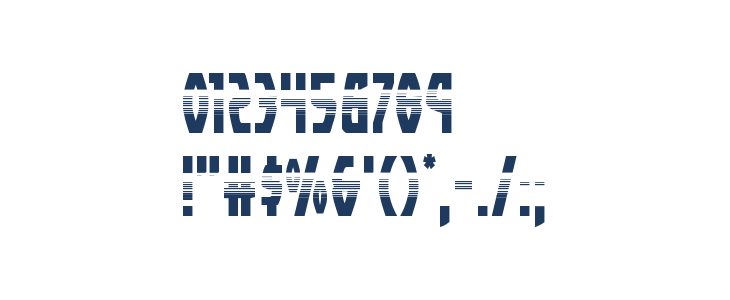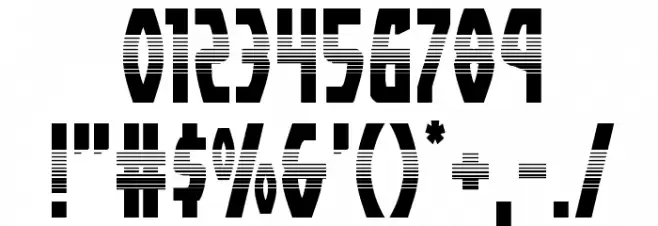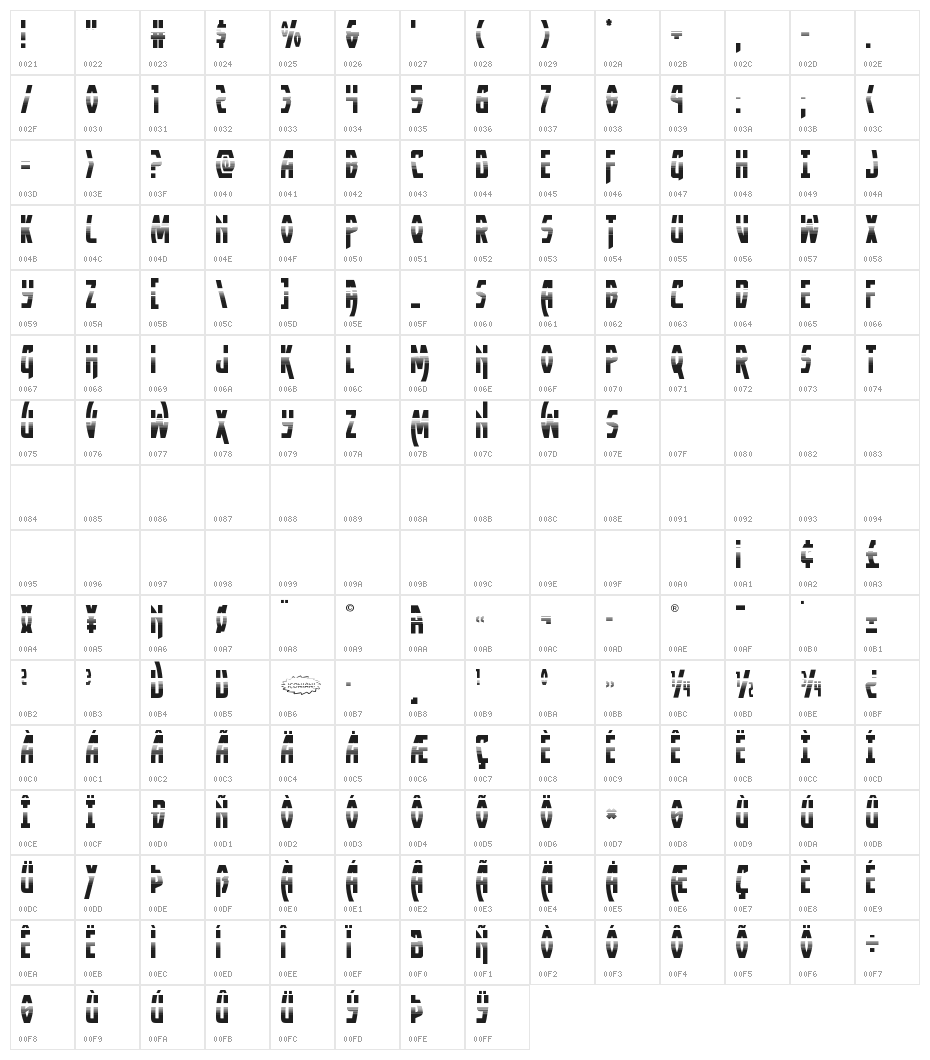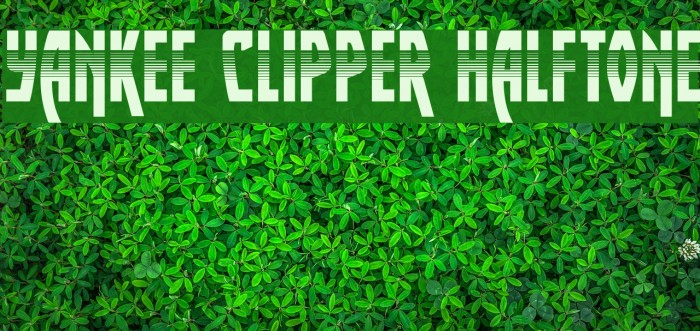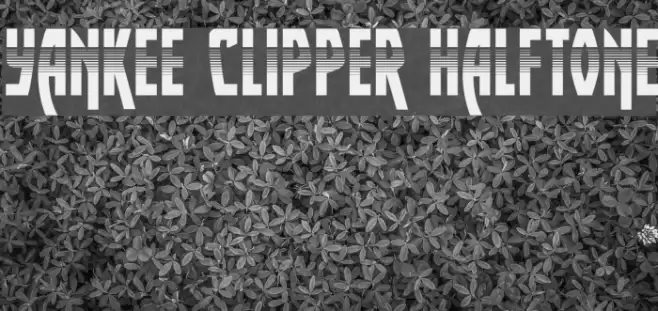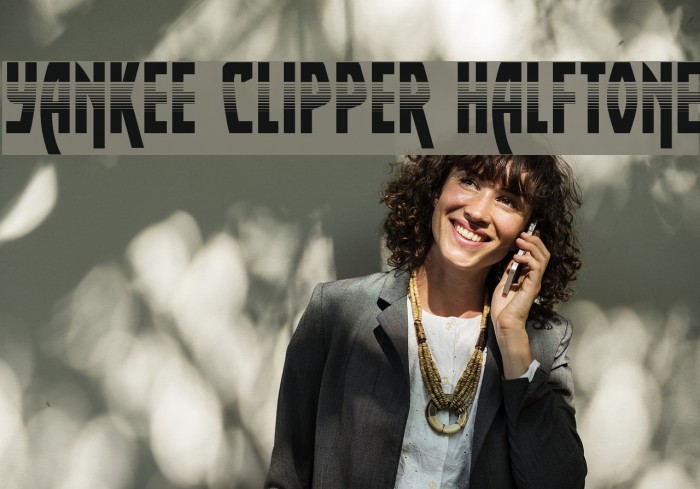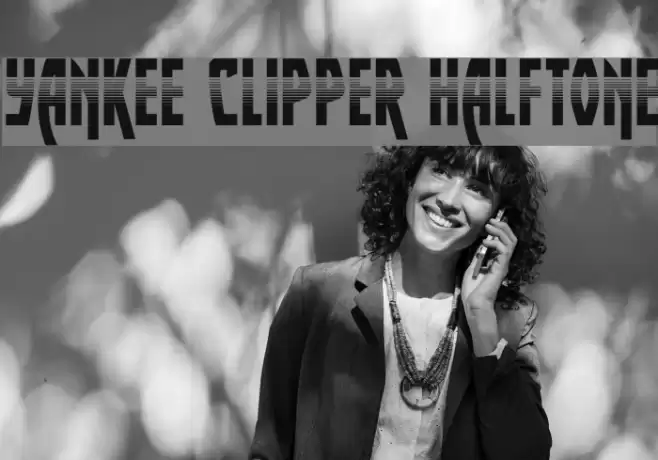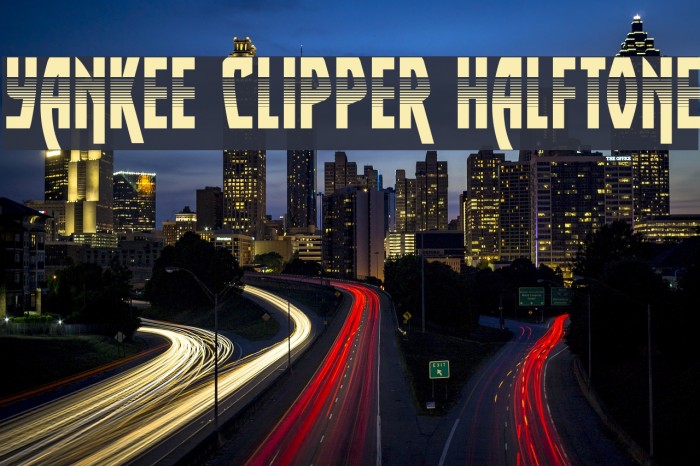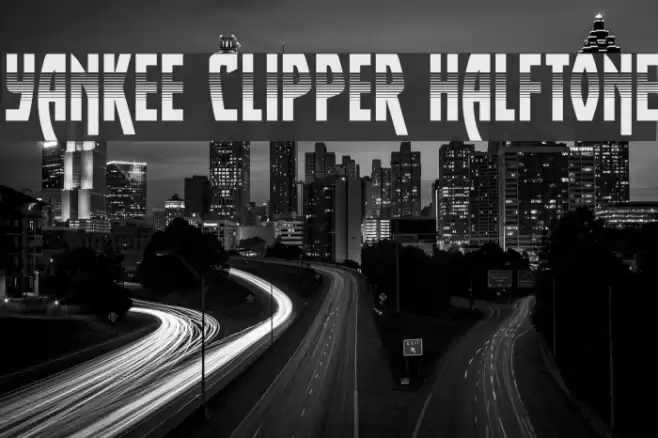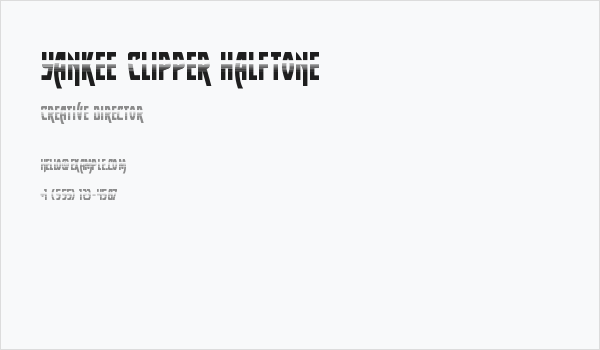
Yankee Clipper Halftone Font
Yankee Clipper Halftone Description
This font features a bold, geometric design with a unique halftone effect that creates a sense of movement and depth. The characters are constructed with a series of horizontal lines that vary in thickness, giving the font a dynamic and modern appearance. The uppercase and lowercase letters maintain a consistent style, with sharp angles and a strong presence. The numbers and special characters are equally bold, ensuring a cohesive look across all elements. This font is ideal for projects that require a striking and contemporary aesthetic.